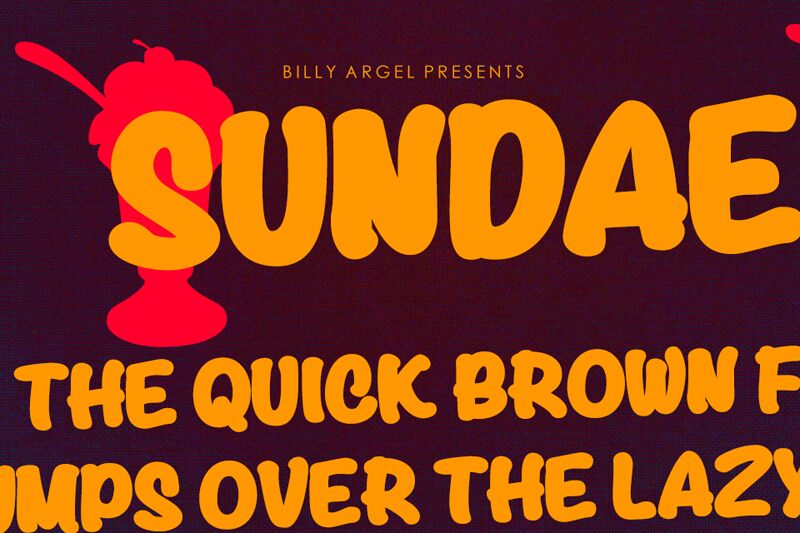
SundaeHitPersonalUse-Bold
Sundae Hit Bold is the perfect font for playful and whimsical designs. Designed by Billy Argel Fonts, this display typeface boasts a bold weight that adds impact to any project. With its cartoonish style, it's ideal for children's books, candy packaging, and even party invitations. The Sundae Hit family also offers a range of widths, making it versatile enough for various design needs. Whether you're creating a logo or designing a website, Sundae Hit Bold will surely leave a sweet impression on your audience. Try it out today and see your designs come to life!
Color SVG font.